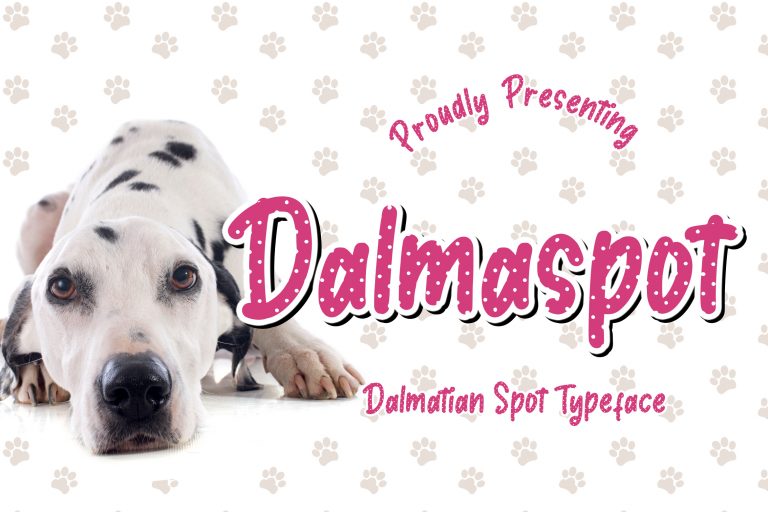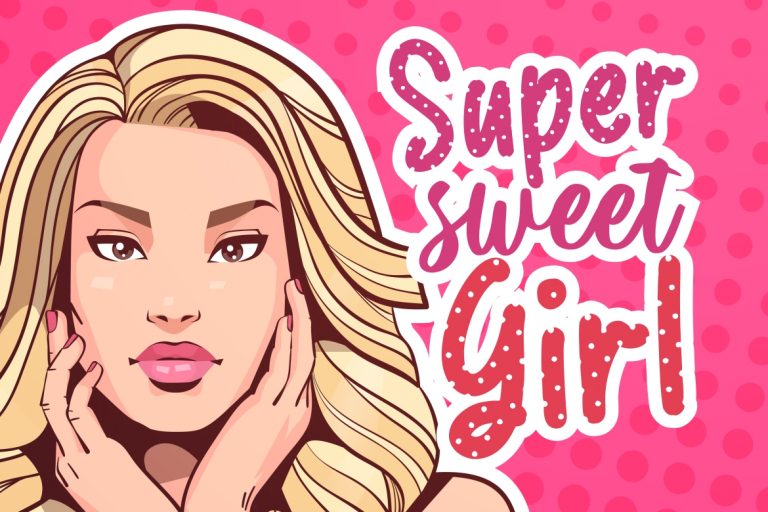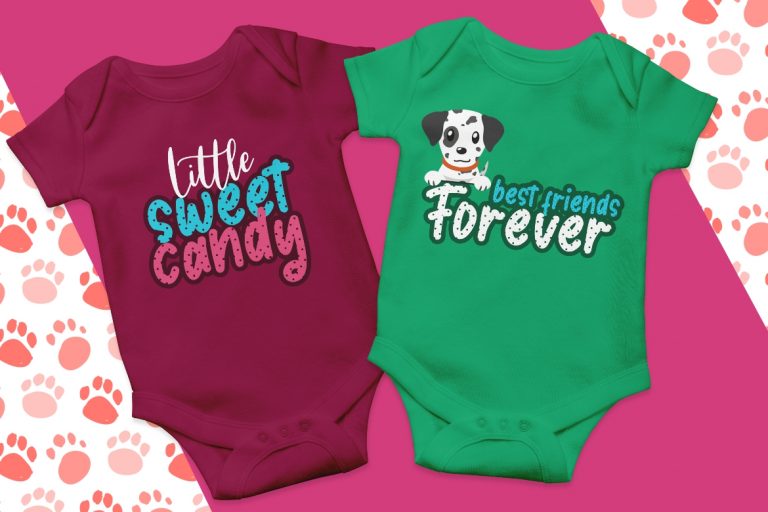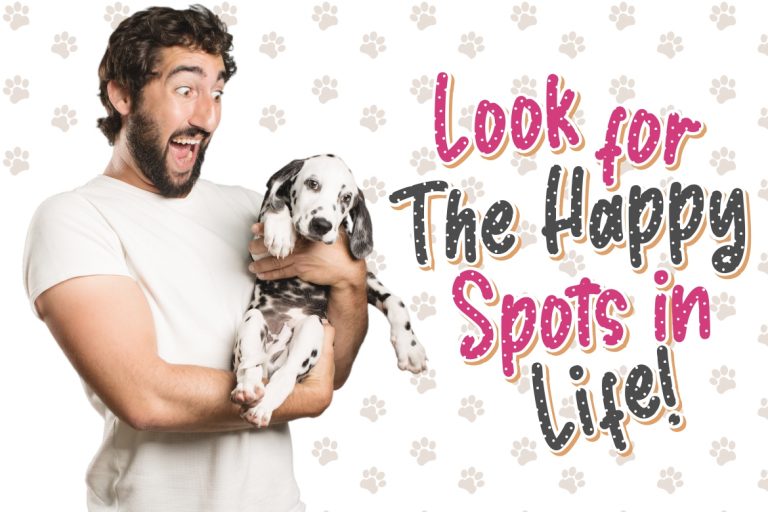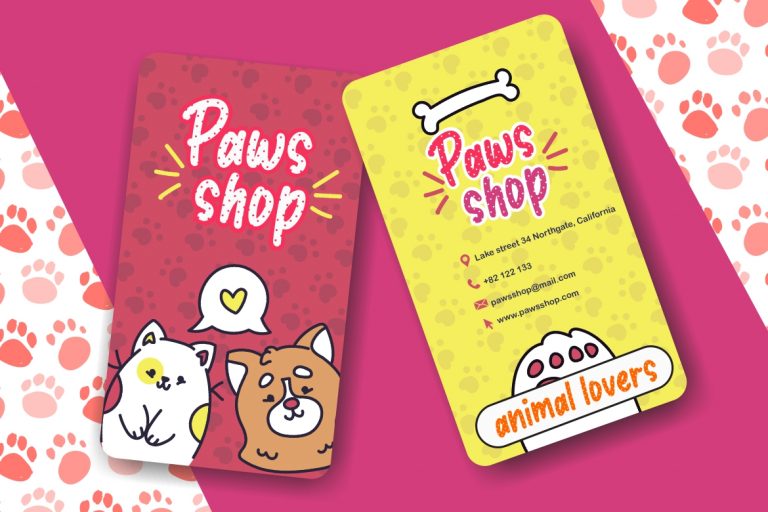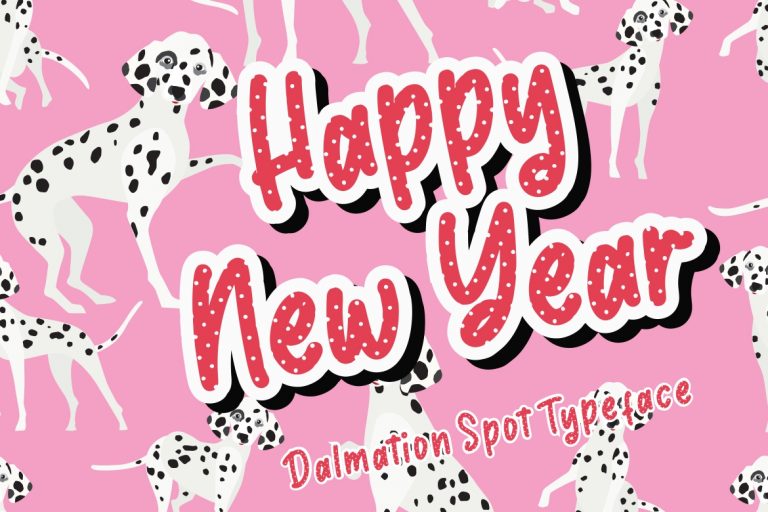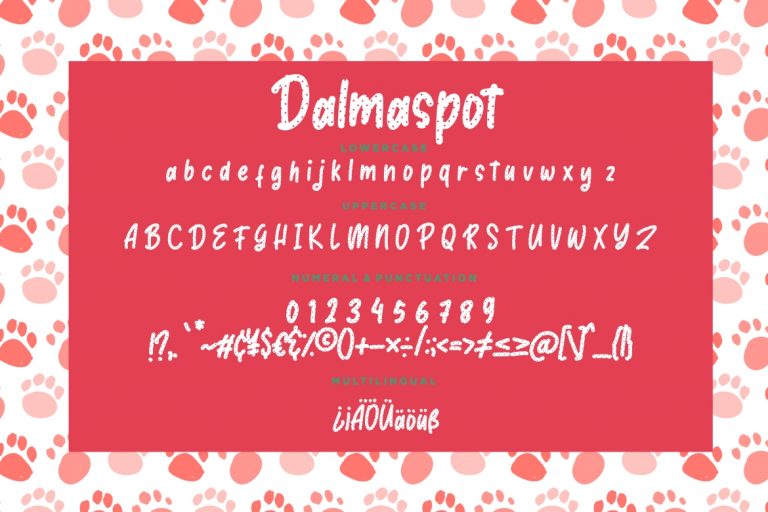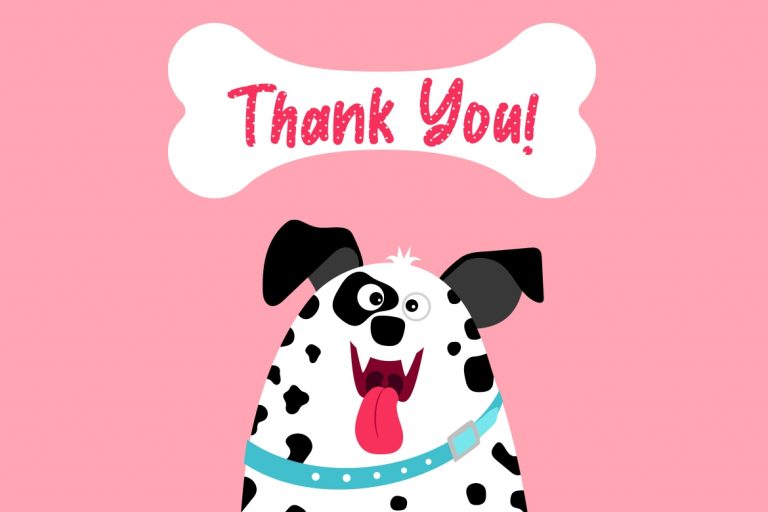
Dalmaspot Dalmatian Spot Typeface
Dalmaspot is fun and joyful bold font which dalmatian spot style and suitable to use for fun related occasion.
Dalmaspot is perfect for branding projects, logo, wedding designs, social media posts, advertisements, product packaging, product designs, label, photography, watermark, invitation, stationery and any projects that need handwriting taste.
• Fonts include multilingual support for; ä ö ü Ä Ö Ü ß ¿ ¡